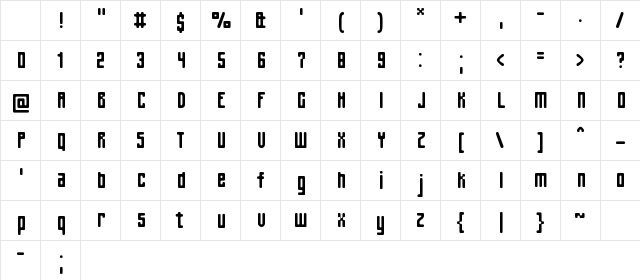
Complete Blabla Regular glyph index. Displaying only characters natively supported by Blabla Regular font.
Blabla is a composed and adaptable typeface that performs quietly and consistently across a wide range of design contexts.